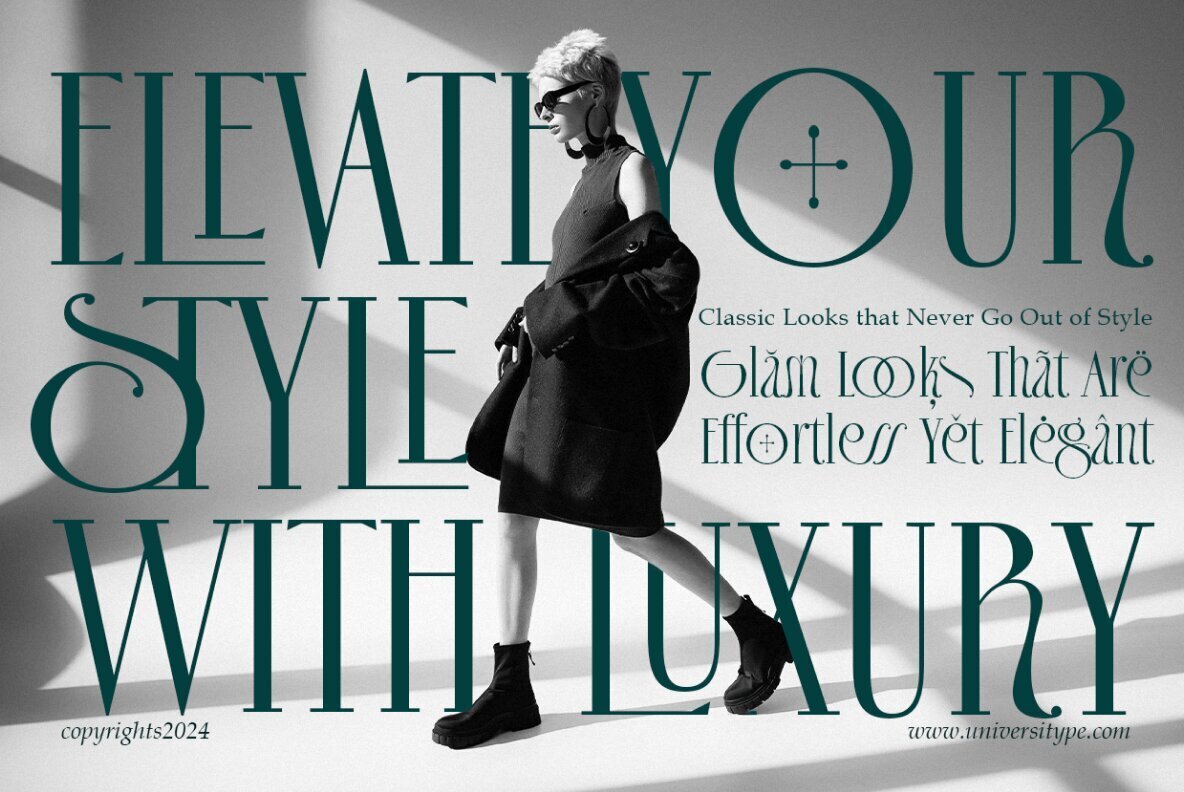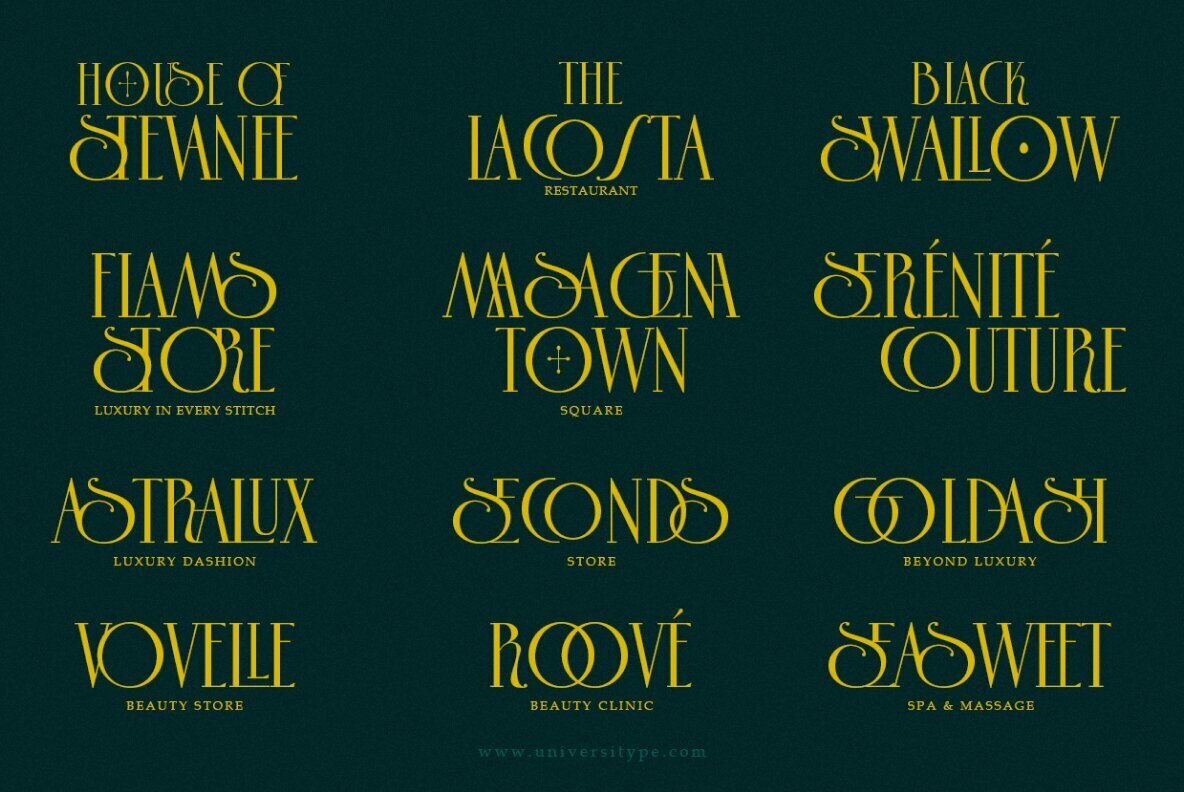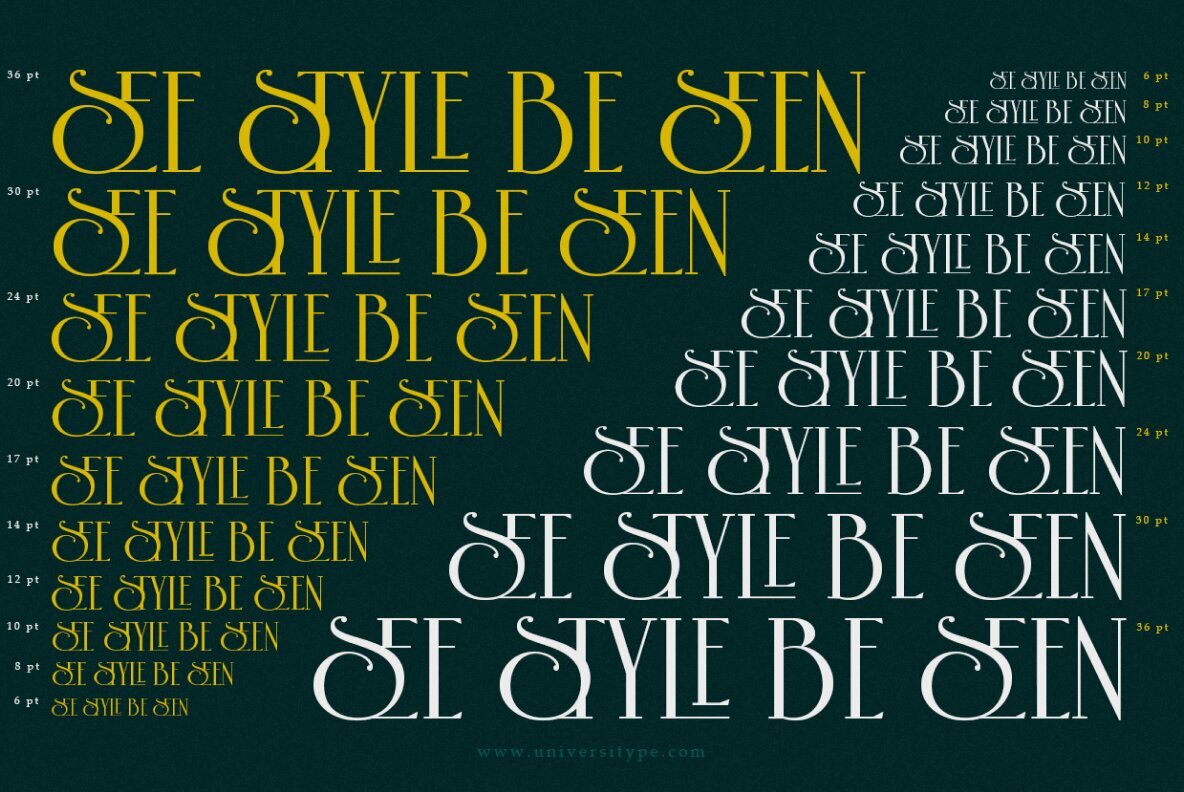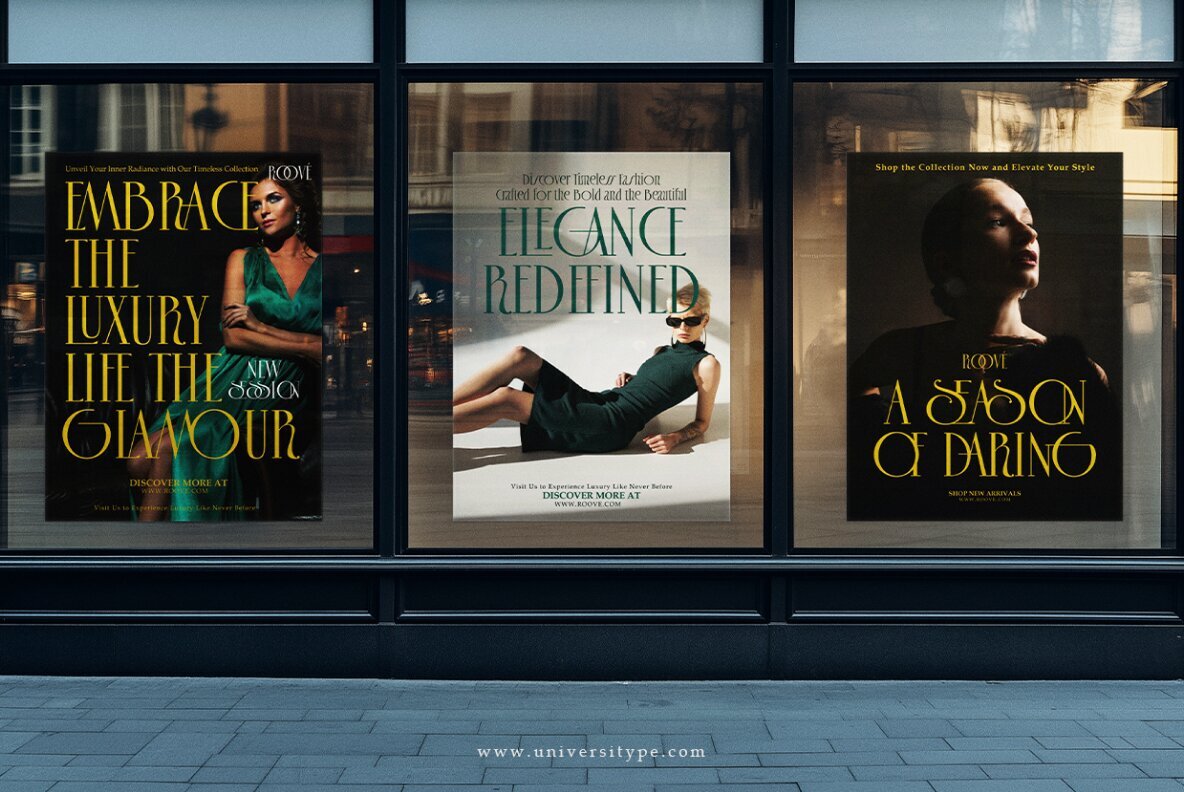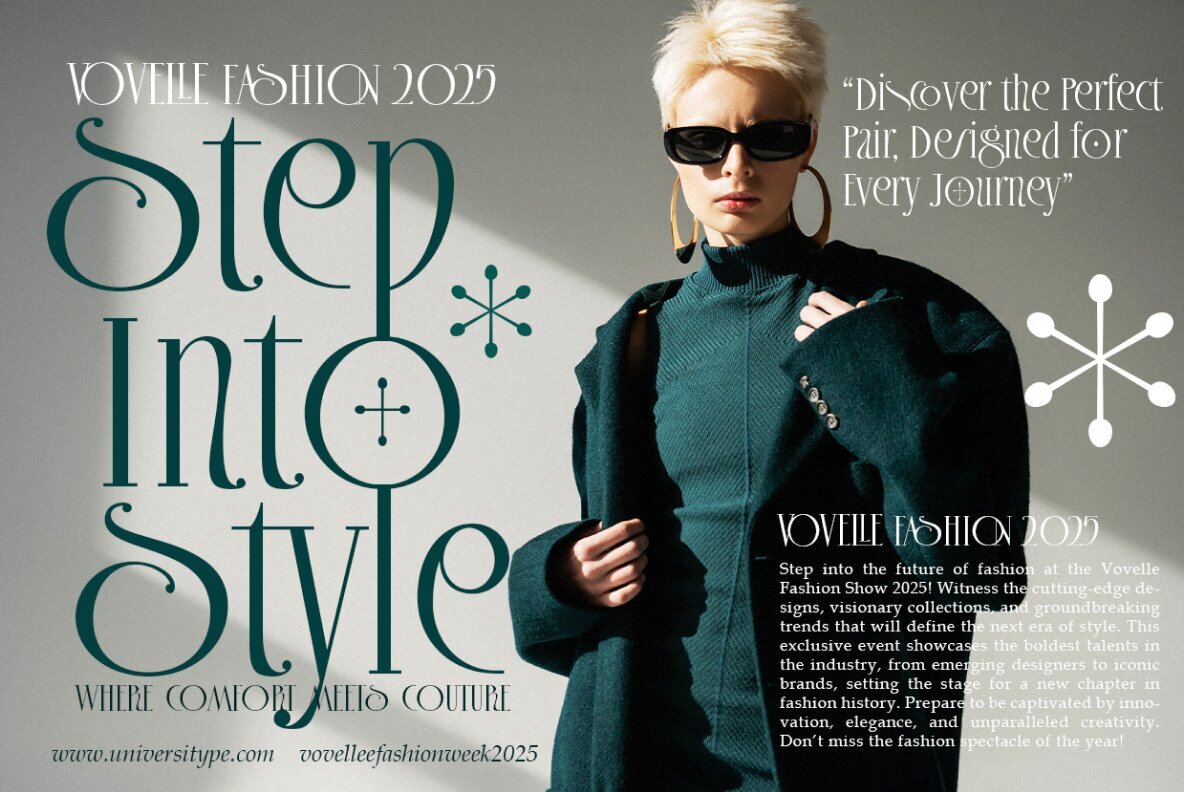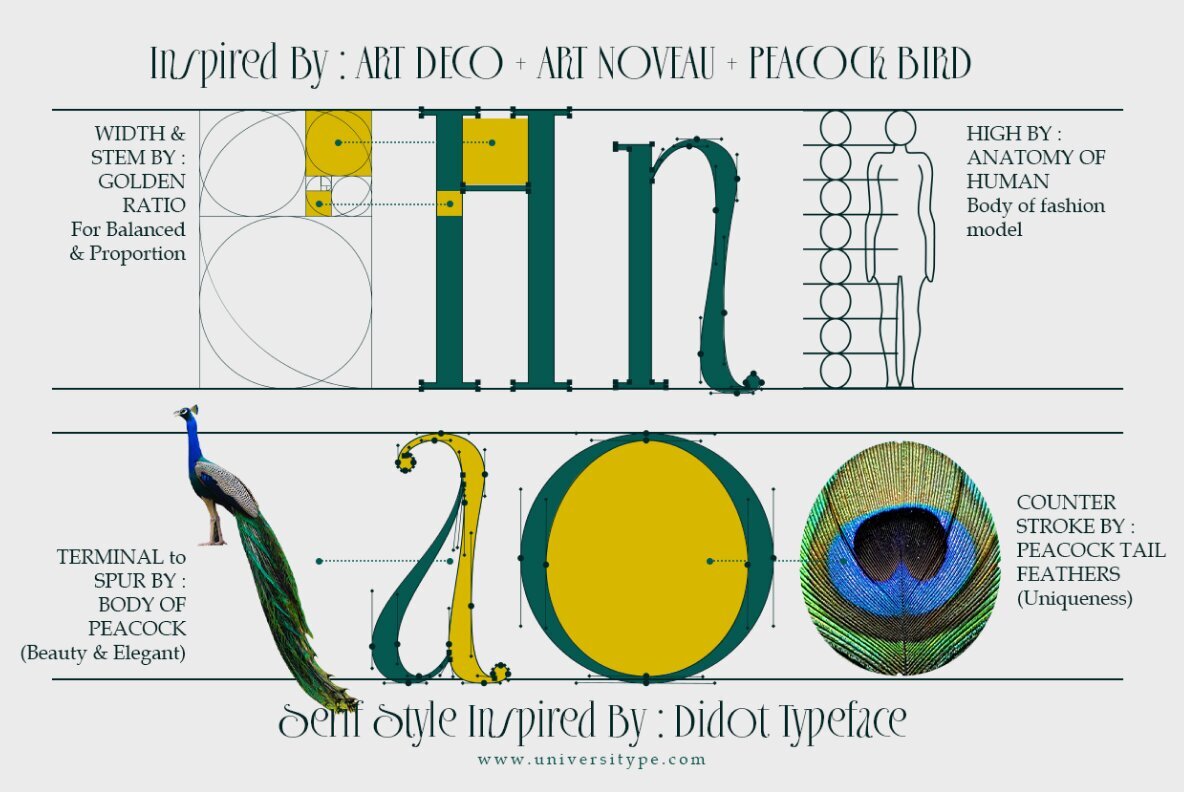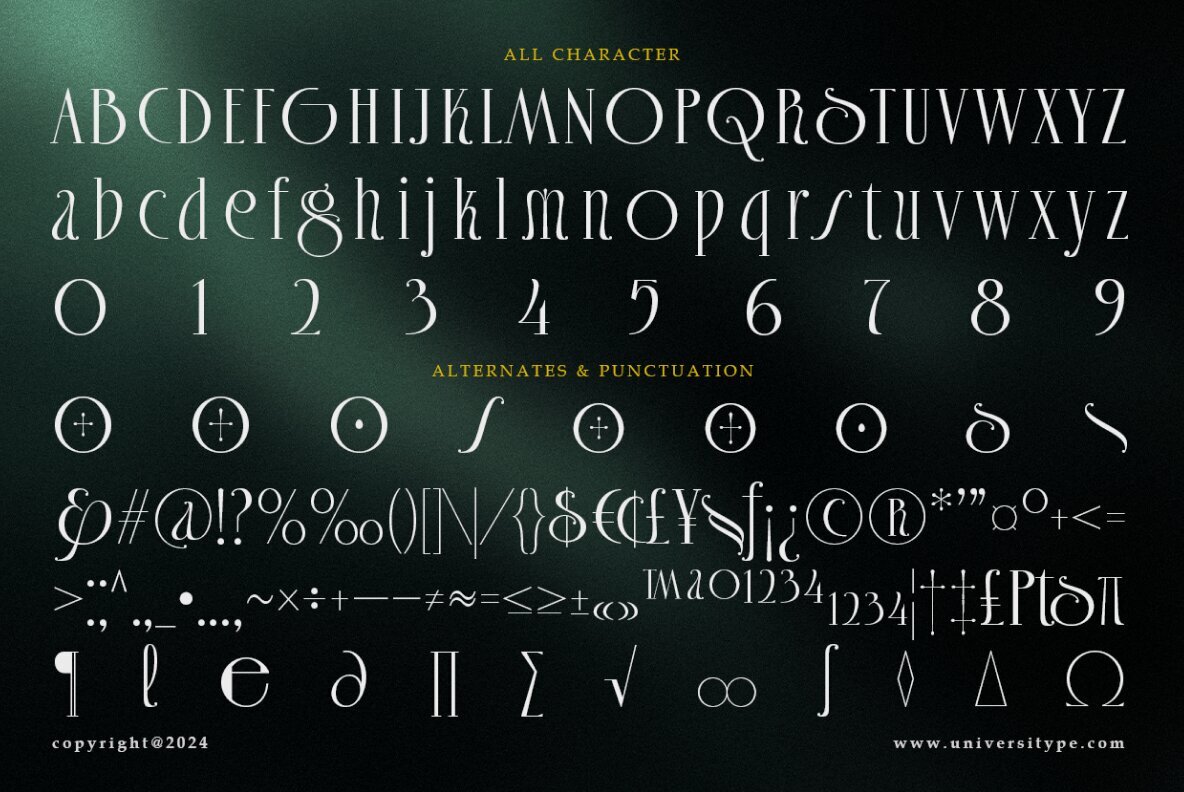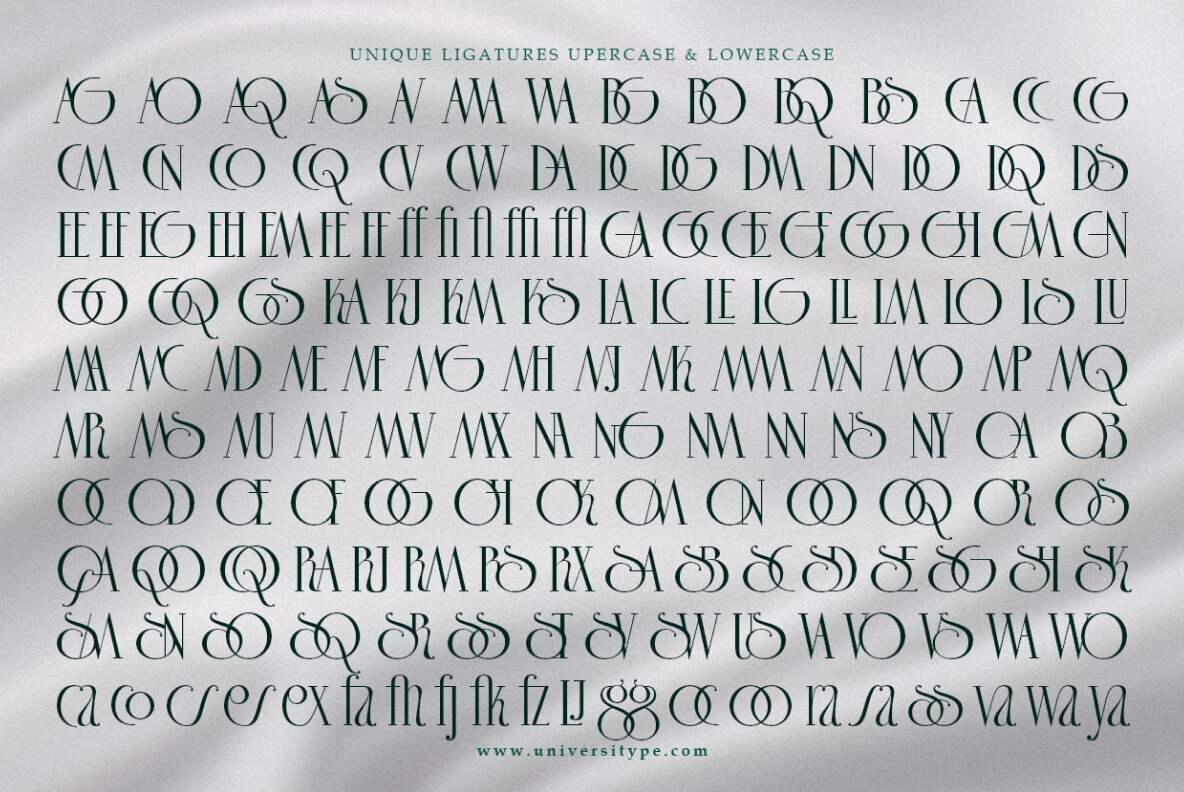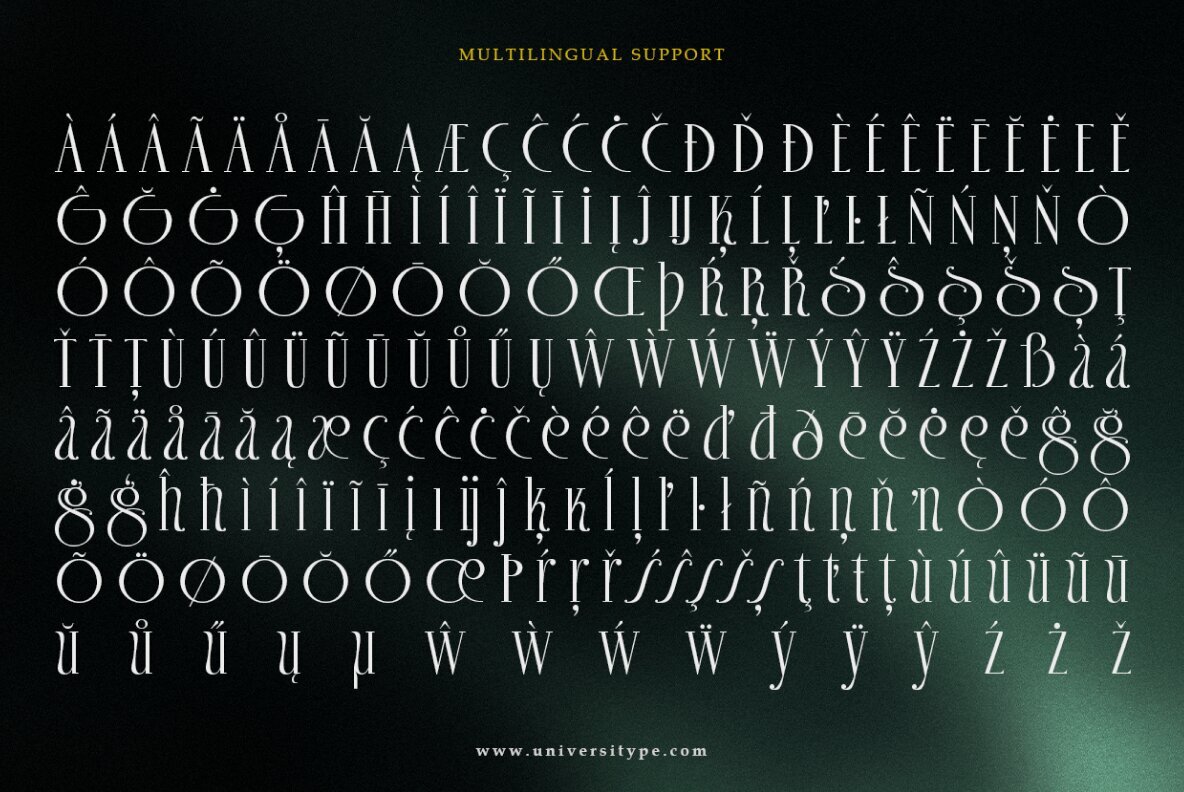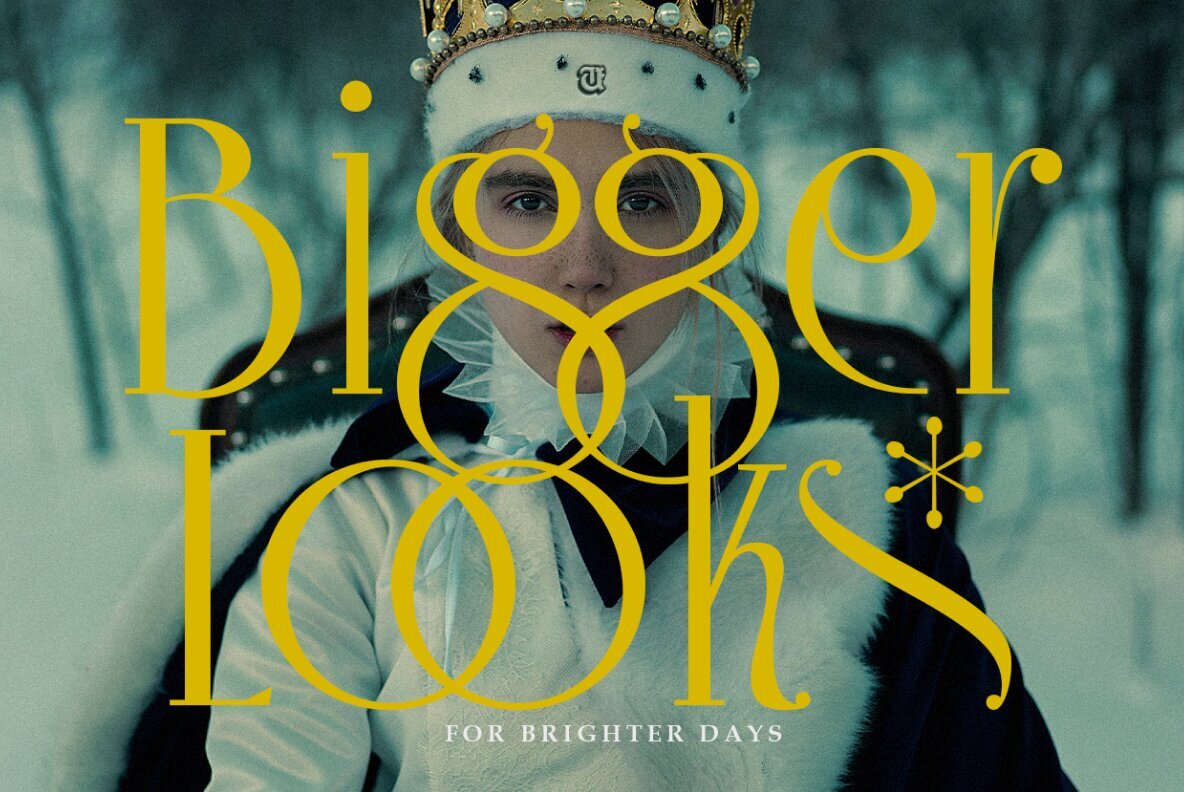
UT Sagora Glamour Font
UT Sagora Glamour Regular
Introducing Sagora Glamour: A Typeface of Sophistication UT Sagora Glamour redefines the role of typefaces, offering a condensed sans-serif design that exudes luxury and refinement. Designed with high-end creatives in mind, it serves fashionistas, luxury lifestyle curators, visionary designers, and perfectionists who seek elegance in their work. Its bold yet graceful design ensures it becomes a staple for branding, marketing, and editorial projects that demand an elevated aesthetic. At its core, Sagora Glamour blends nature's elegance and geometry's precision. Inspired by the intricate beauty of peacock feathers and the timeless proportions of the golden ratio, this font balances bold strokes with delicate details, creating a sense of harmony. Its unique features include alternate characters, over 150 ligatures, and stylistic flourishes, making it highly versatile and suitable for bespoke designs across diverse applications. The font’s aesthetic is a seamless fusion of Art Deco glamour and Art Nouveau fluidity, with proportions echoing the poised lines of fashion models. It captivates with its structured yet organic forms, embodying both opulence and approachability. Whether in luxury branding, event invitations, or editorial layouts, Sagora Glamour ensures every design speaks with sophistication and clarity. Its pixel-perfect hinting ensures clarity on all platforms, making it a timeless choice for designers who demand precision and beauty in equal measure.